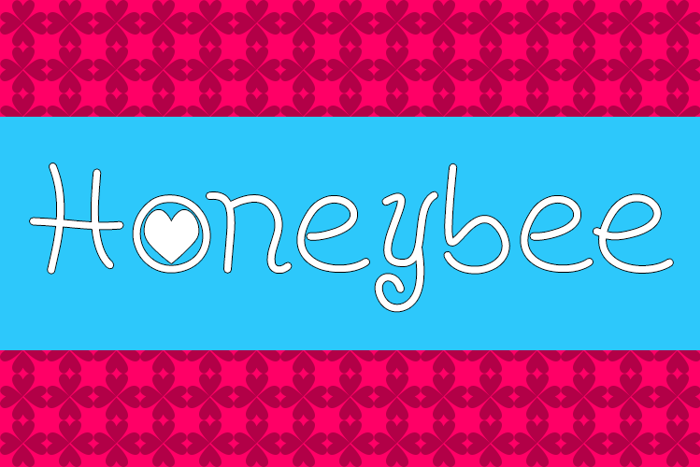
Honeybee Font
Type ** for the flower
Type :) for the bee
Type <3 for the heart
Type <33 for the scribble heart
Type <333 for the open heart
Type I<3U for the Love symbol
Type ## for the Honey symbol
i luv the little hearts on the i
such a cute font
Absolutely adorable! I love all the little doodles included with this font set. Thank you so much for sharing. 😄